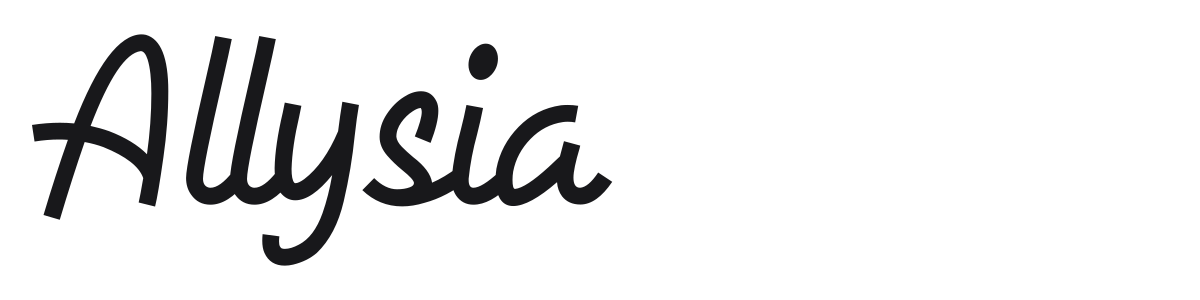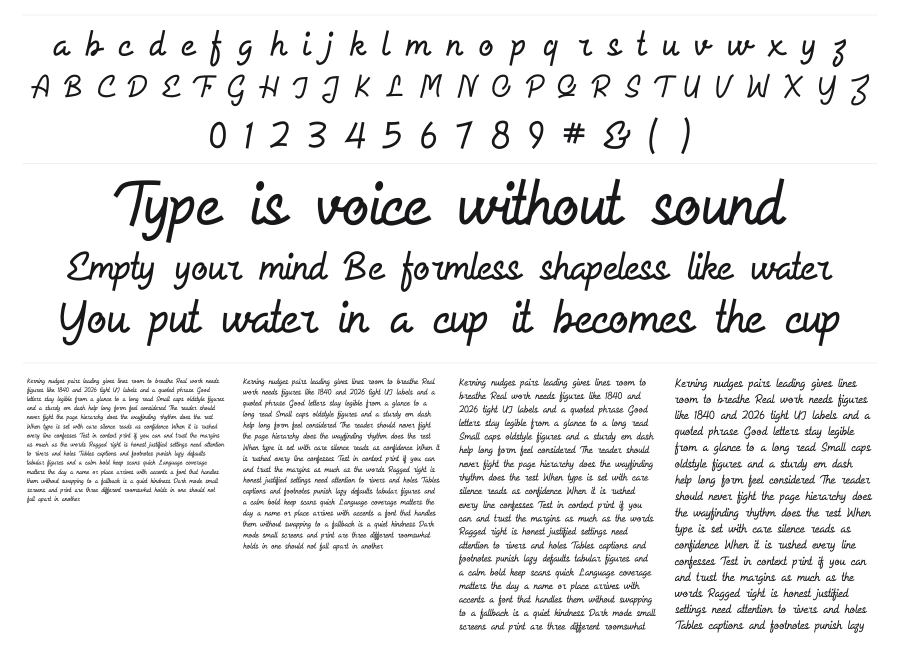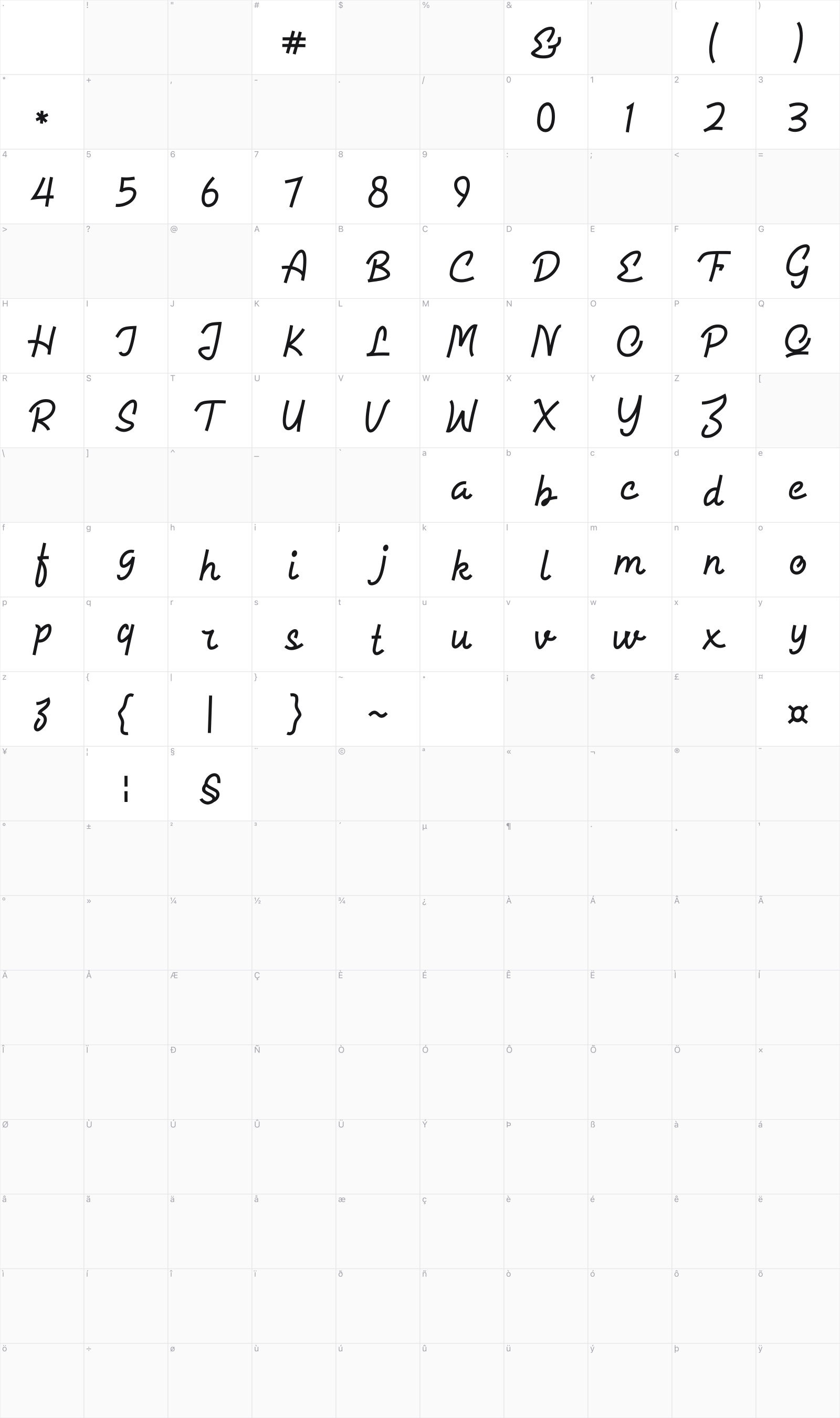
Allysia
Allysia is a bold casual script with flowing connected strokes and a confident hand-lettered rhythm. The thick rounded forms and slight baseline bounce give it warmth and energy without veering into formal calligraphy. It reads at a glance and carries personality at headline and logo sizes.